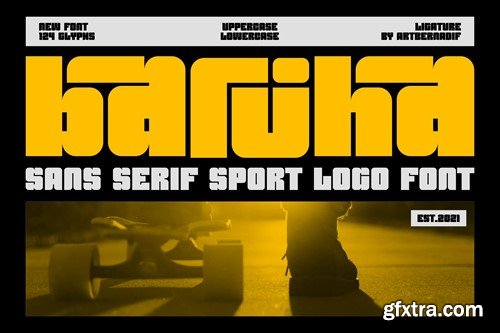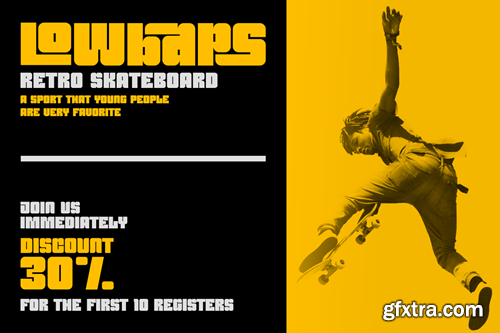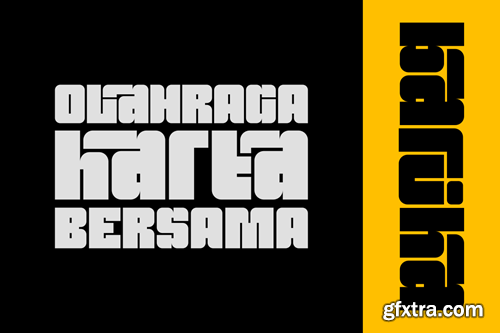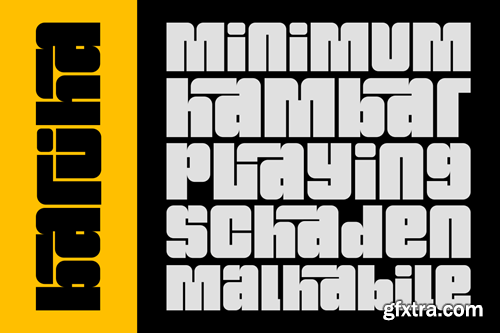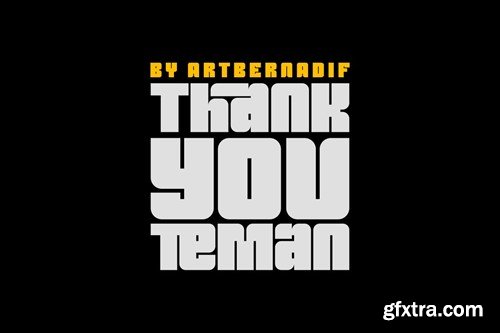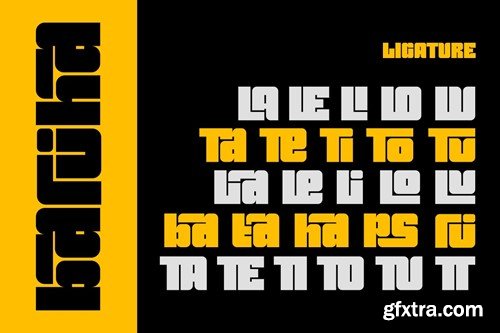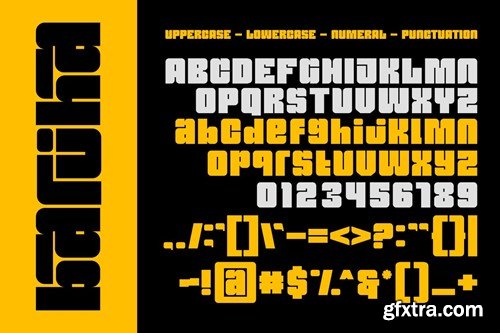
巴杰亚 - 简体无衬线运动标志字体C2N7ZYH
Barjha - Sans Serif Sport Logo Font C2N7ZYH
Barjha - Sans Serif Sport Logo Font
Introducing our new product Barjha Font Sans Serif Sport Logo Font
Barjha Font Modern Font is a bold and authentic display font. The font is suitable for any branding project like logo, t-shirt printing, esport, and many more. outstanding in a wide range of contexts.
• Barjha Uppercase
• Barjha Lowercase
• Barjha Ligature